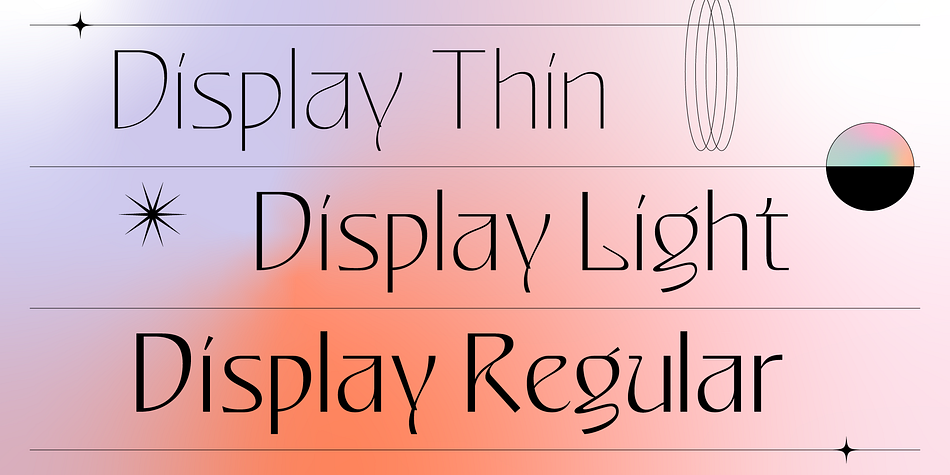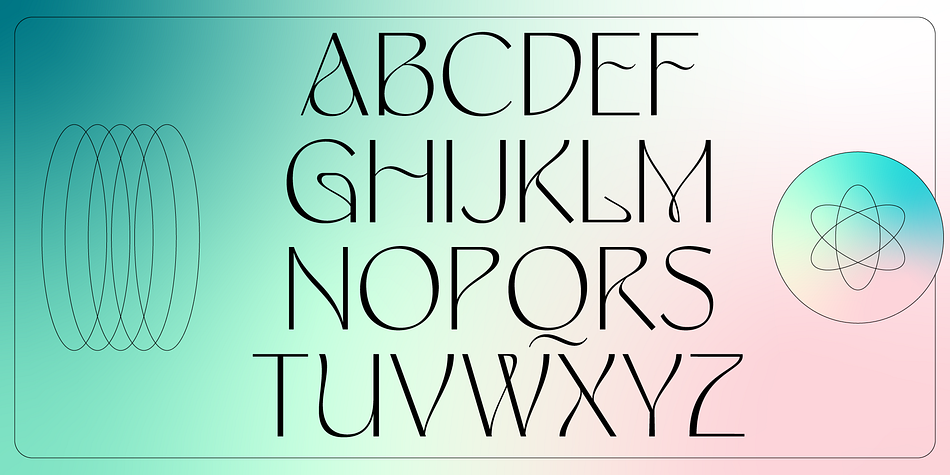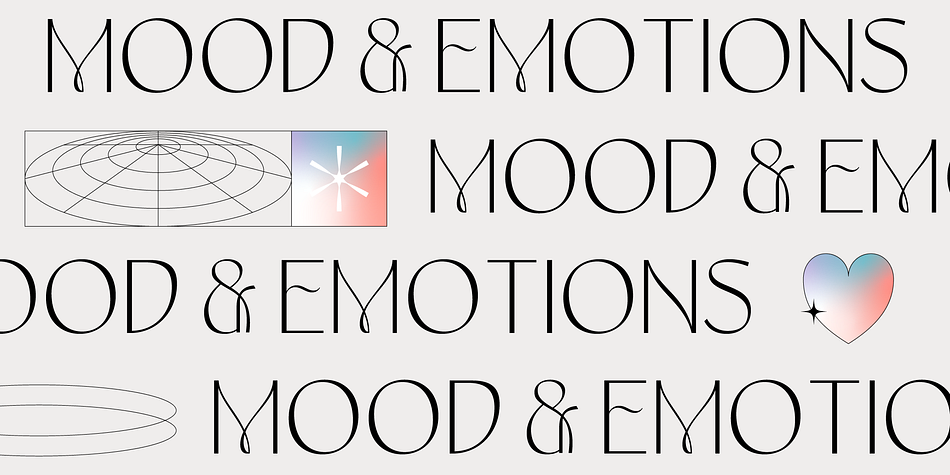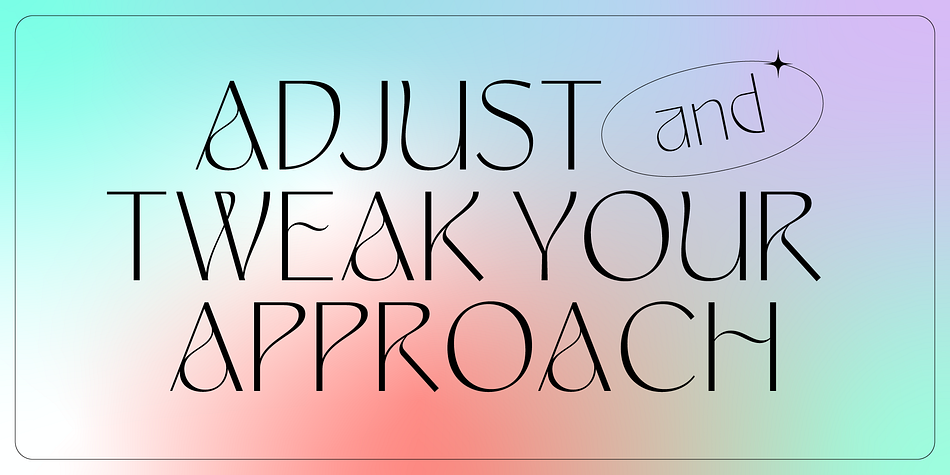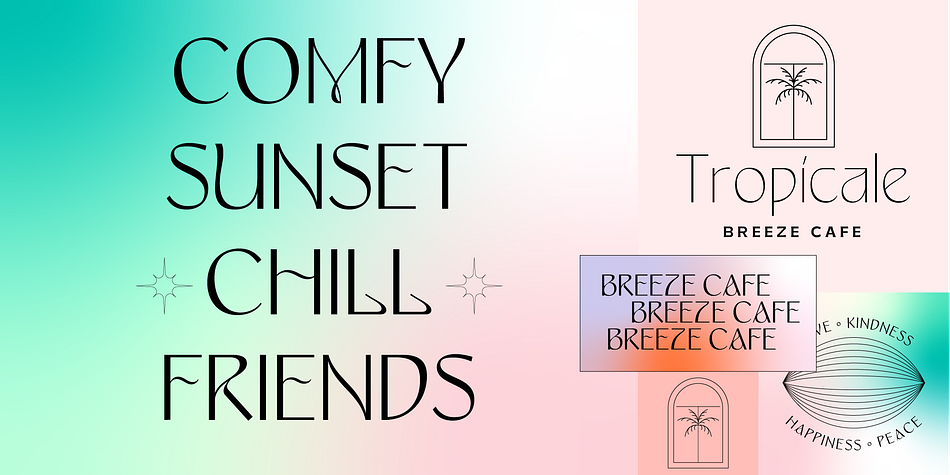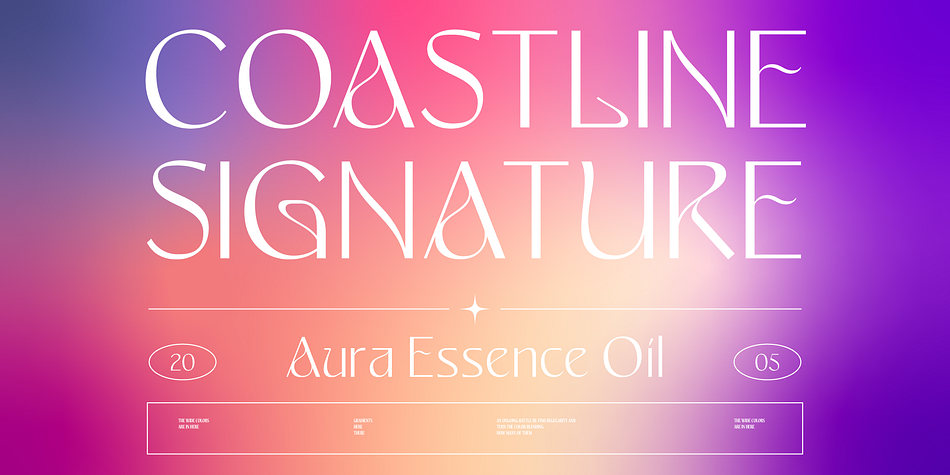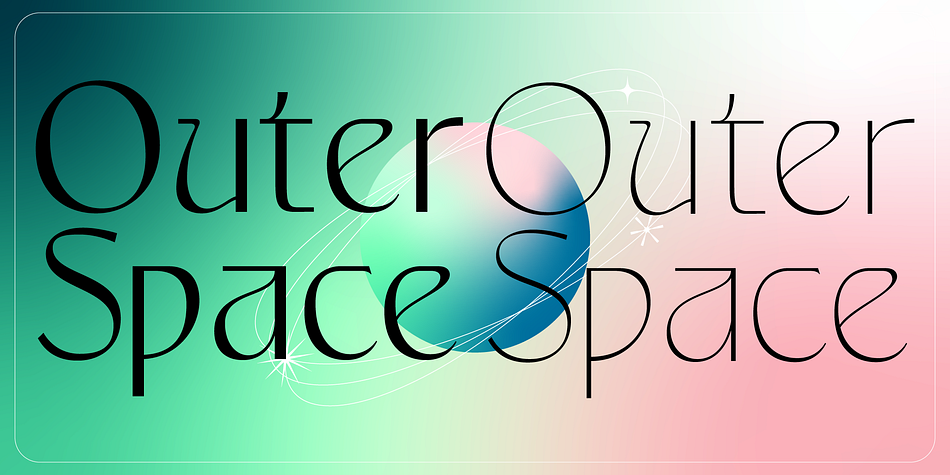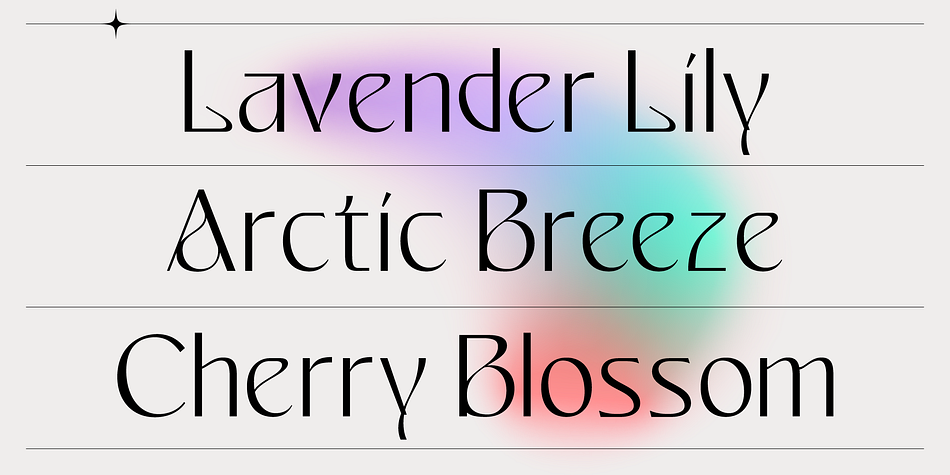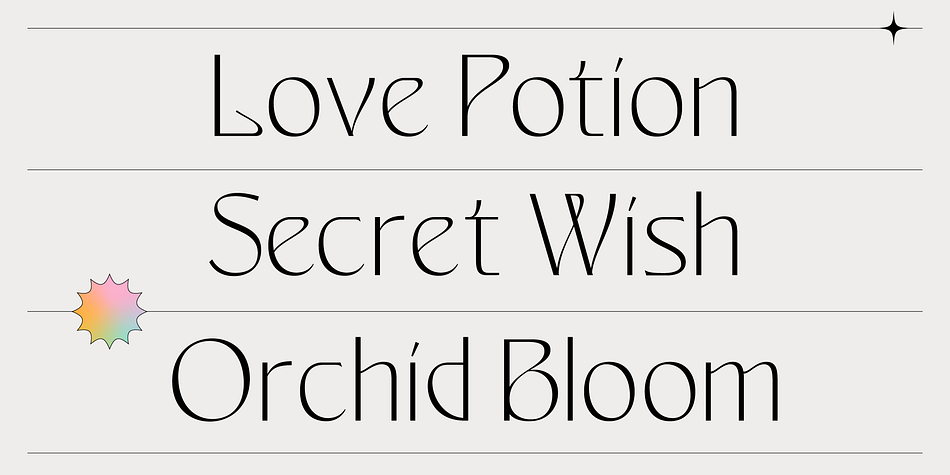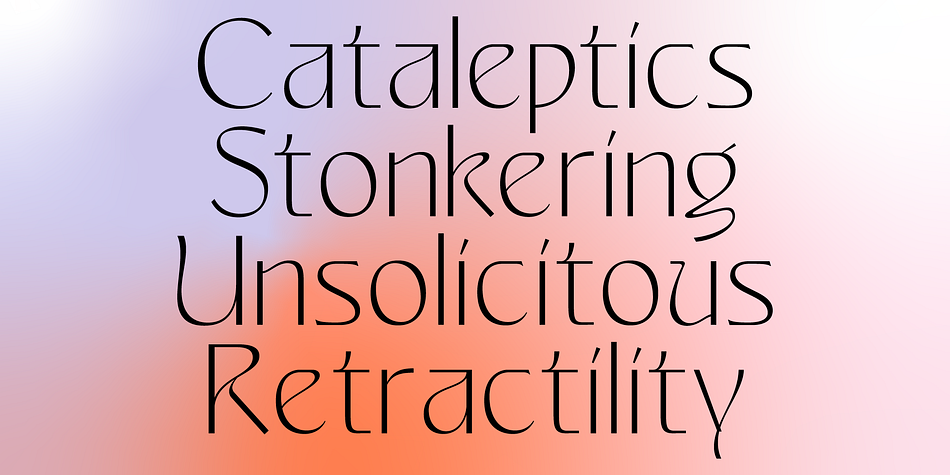
Alvarosa
Alvarosa is an art nouveau and display sans font family. This typeface has three styles and was published by AF Studio.
Alvarosa is a beautiful, elegant and thin display font. Incredibly trendy and versatile. Inspired by the trends of minimalist looking display fonts that shown on social media, I’ve made a uniqueness sans serif by adding the quirky elements on a basic letter-form but still easy to read.
It can be used for various purposes such as logos, wedding invitations, headings, t-shirts, letterhead, signage, labels, news, posters, badges and so much more.
Alvarosa comes with 3 different weight : Thin, Light, and Regular. More thin are for Larger text.